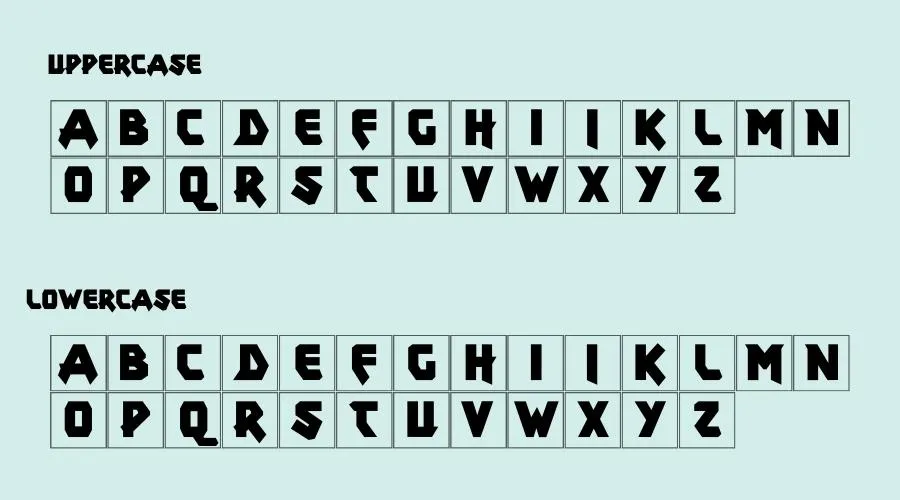
About Xar Font
The Xar font is an attractive typeface that was designed by the famous graphic designer Nowak. It is under the category of a gothic typeface family and is available in both file formats OpenType and TrueType.
This typeface is also popular due to the movie's name. This unique typeface contains approximately six unique styles. The features of this typeface are TrueType.